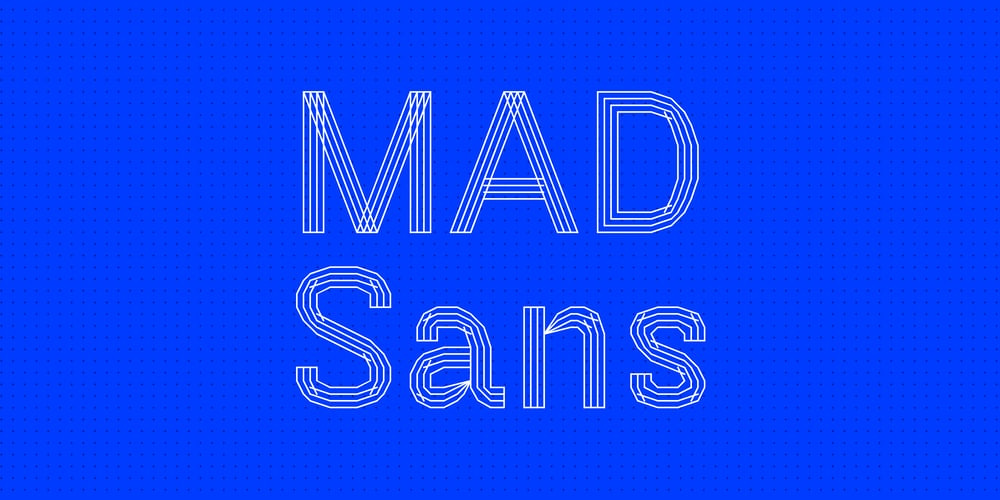
MAD Sans Font Family was designed by Dries Wiewauters and published by Studio Dries Wiewauters. MAD Sans contains 8 styles and family package options. MAD Sans is the blue collar workhorse of the MAD font family. It was built up from skeleton forms of found AutoCAD material, which became the structure of the Light weights. The family was then expanded to include Regular and Bold weights with matching Italics, using the Light weights as a framework for the expansion.Following these ‘Open’ weights, a Fill version became established, opening up another interesting side to the family. It has an air of familiarity mixed with a certain roughness that works in both larger and smaller sizes. Designer Dries Wiewauters fascination for the typography programmed in CAD systems arose while working with CAD drawings at Werkplaats Typografie. MAD is an acronym for Machine Aided Design, a direct reference to CAD (Computer-Aided Design), which reveals the typeface’s starting point.Early printings of CAD plans were done with plotters that drew every single line of the instruction, special typefaces had to be designed for the dimensions and other information. These were constructed out of lines and not outlines of shapes. With their rendering dictated by the resolution of the output device, their final form was not fixed. The two type families are a reinterpretation that tries to make the most of their grid-based nature — a tribute to historical and forgotten form.